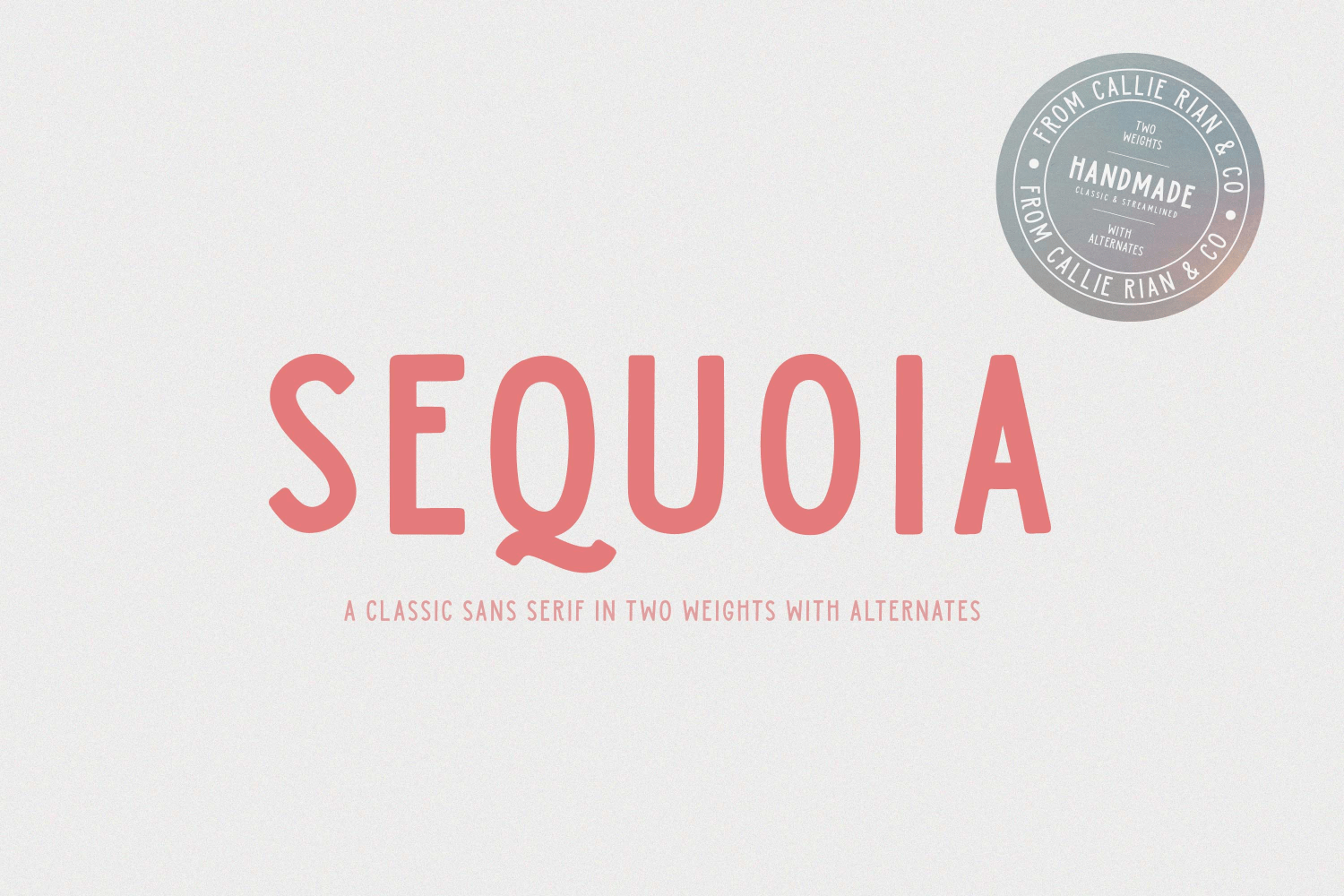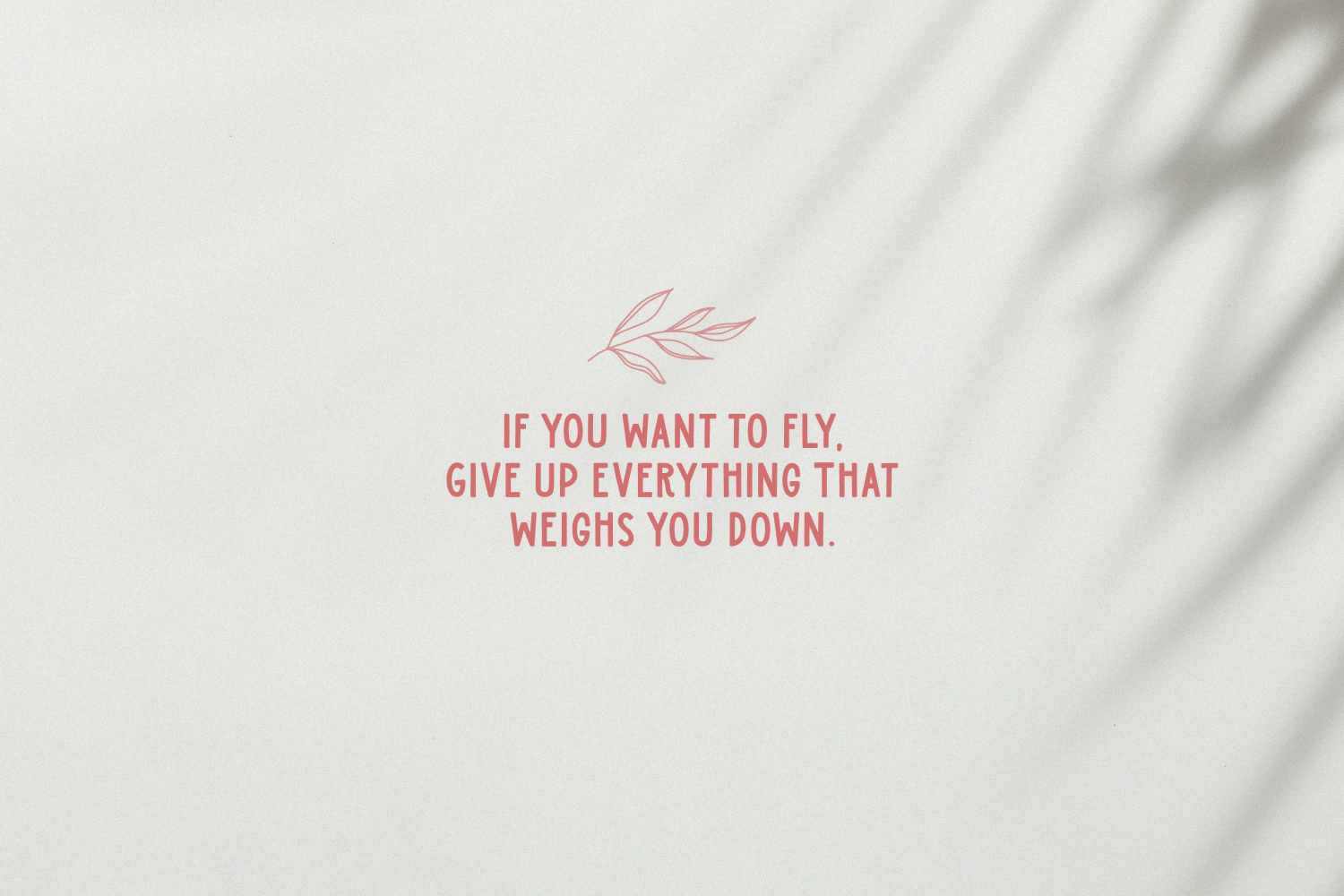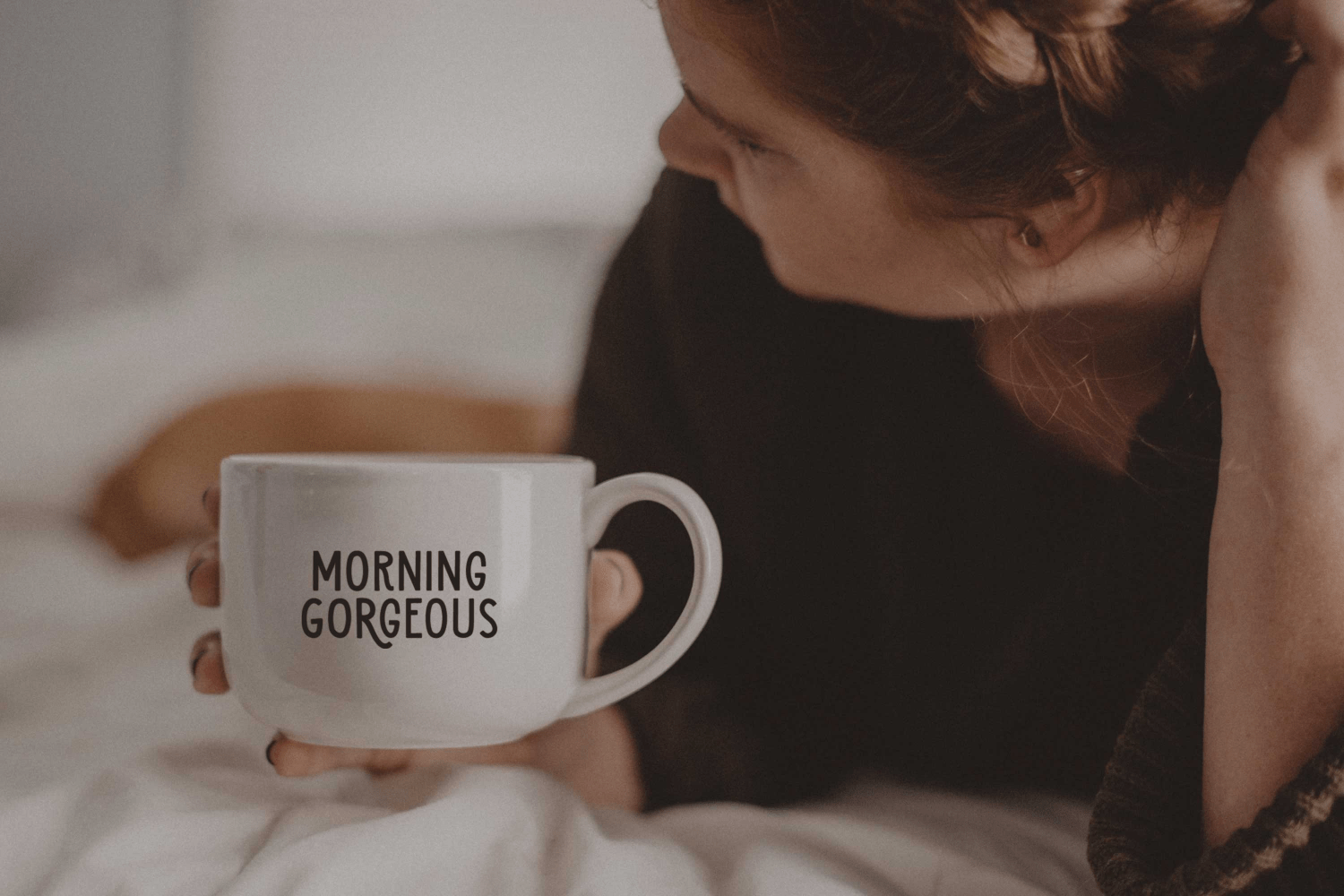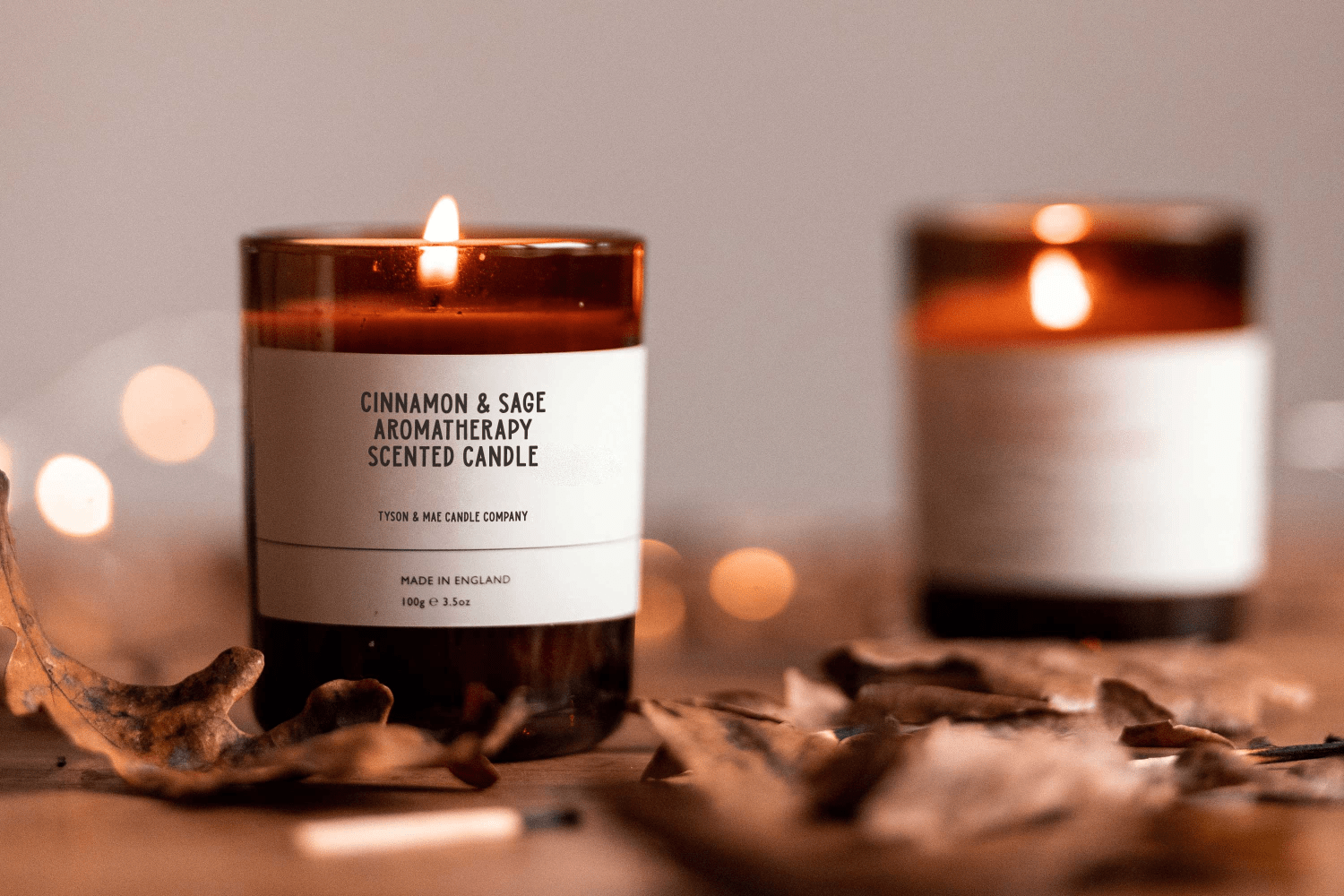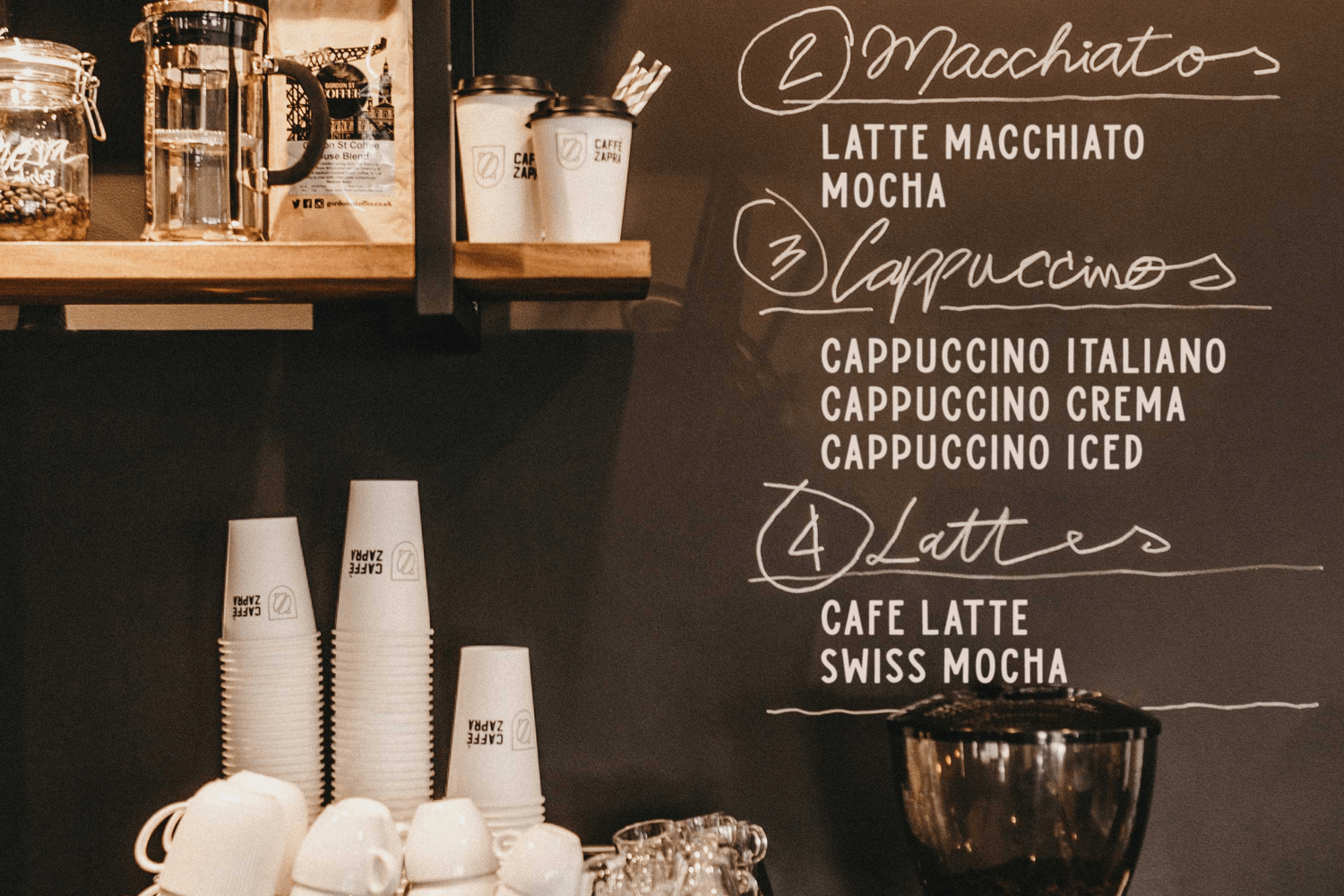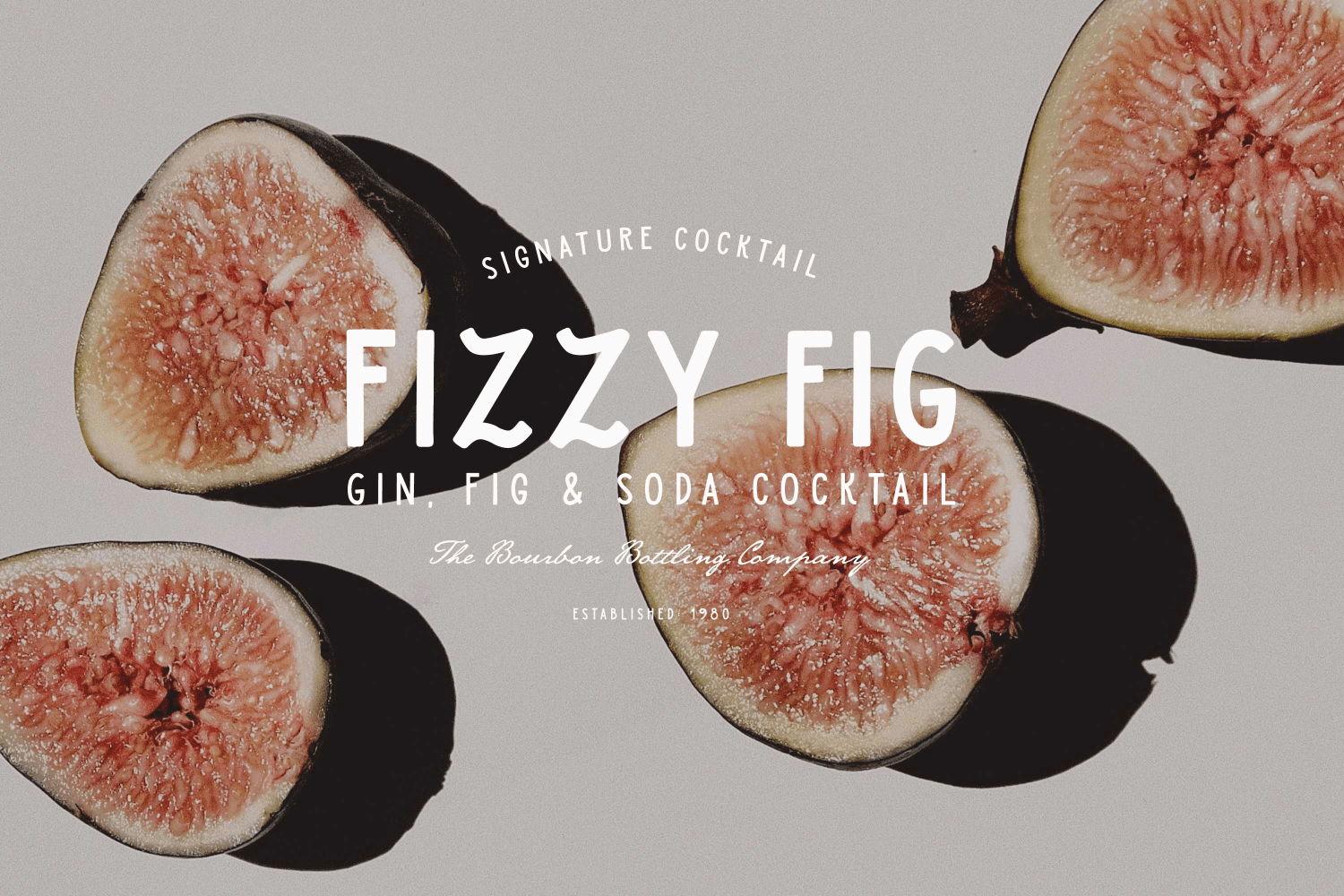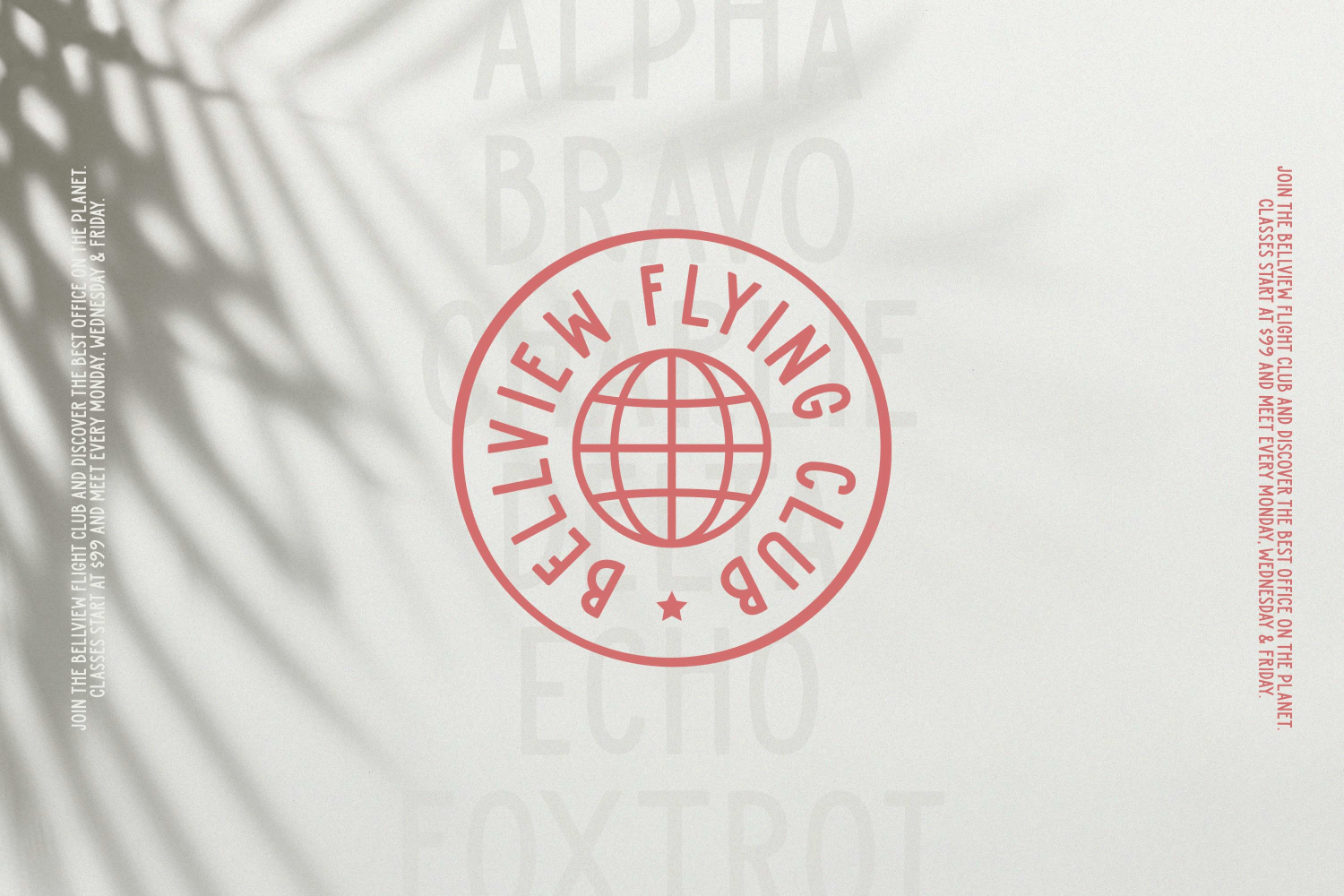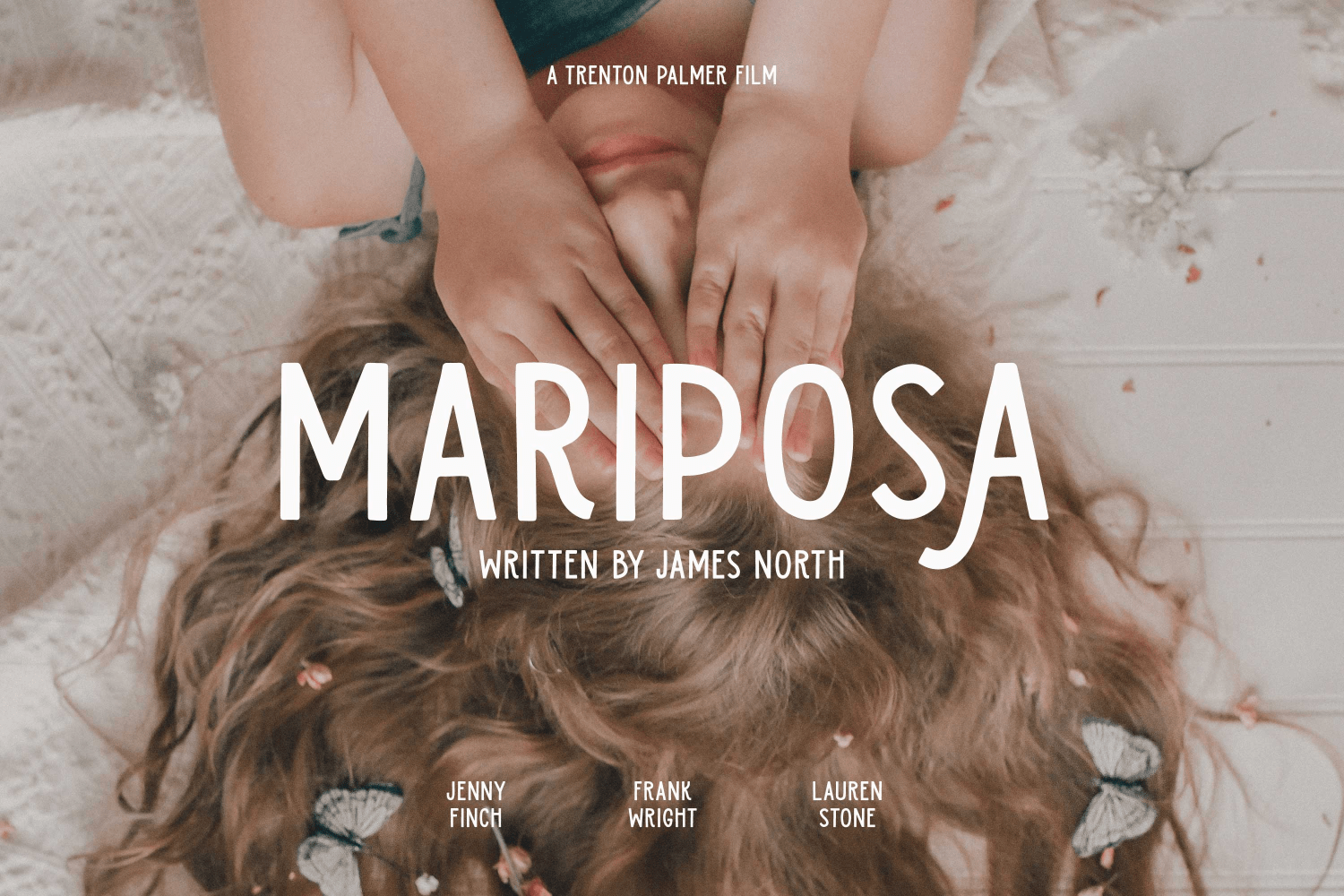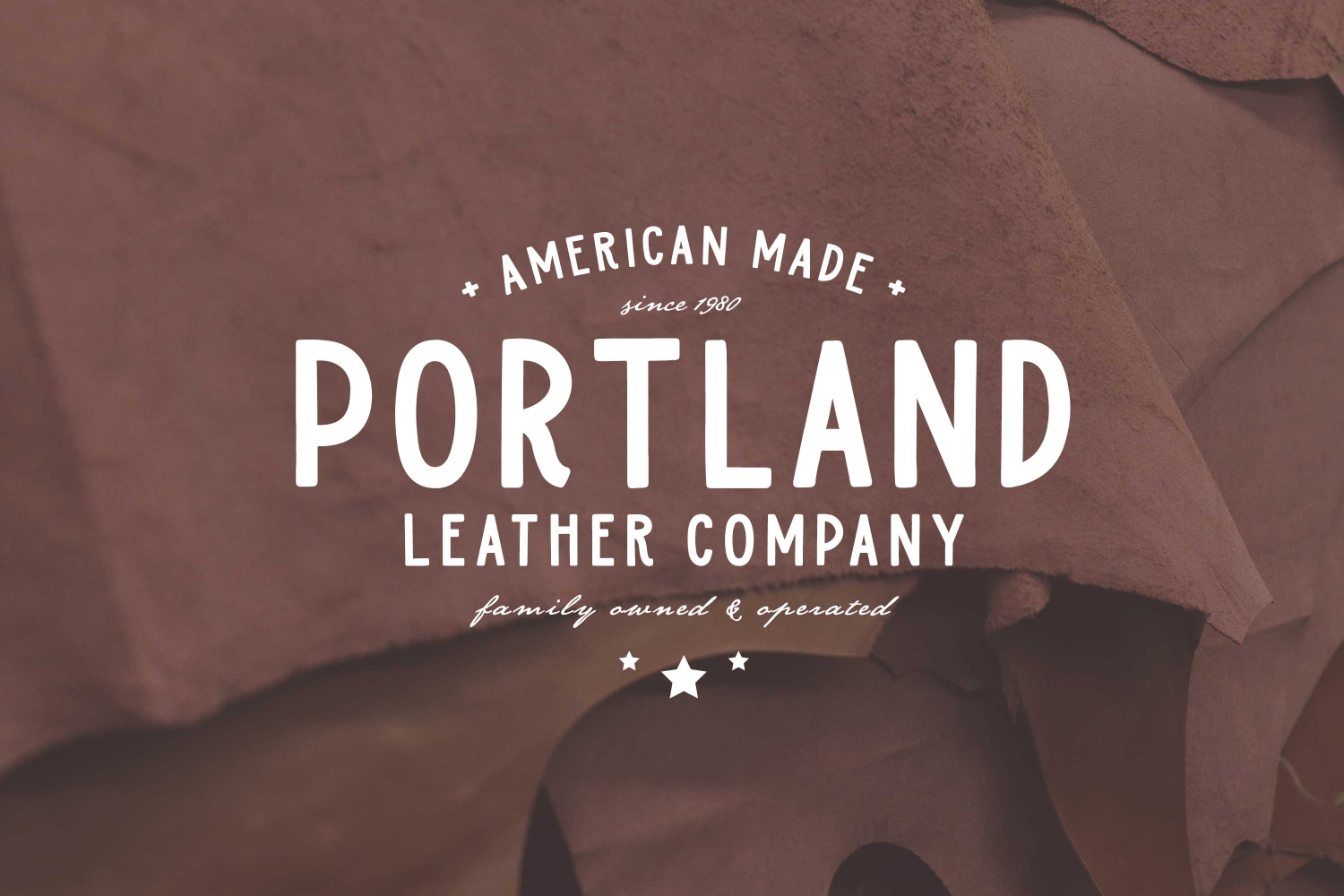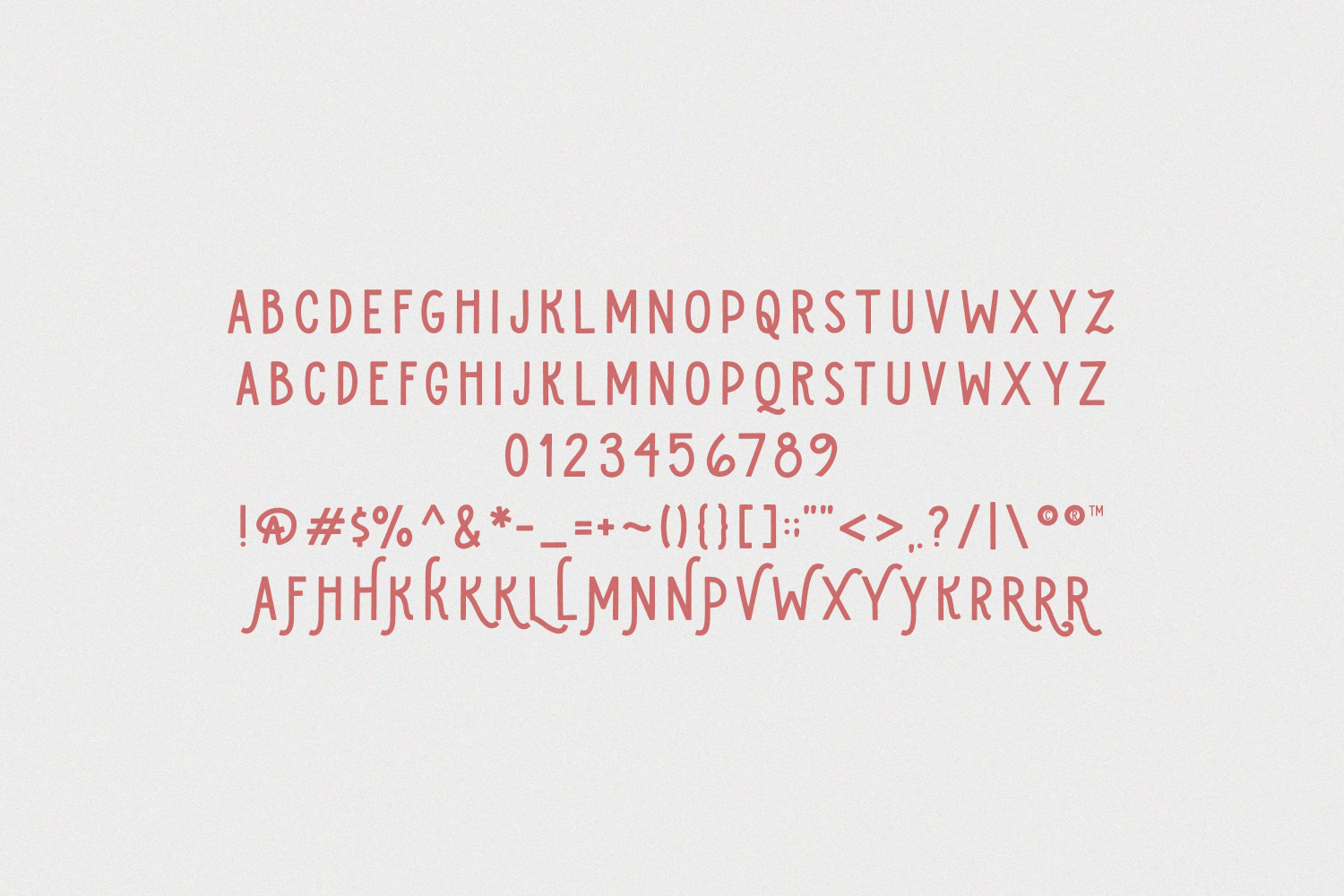
Sequoia Sans
Font Family by Callie Rian & Co
Introducing Sequoia Sans, a modern, streamlined, all-caps display font, inspired by bold, clean headlines. Sequoia Sans comes in two weights (regular & bold), and boasts 25 decorative alternates with language support. Use on logos, magazines, headlines, branding, quotes, merch, billboards and more!